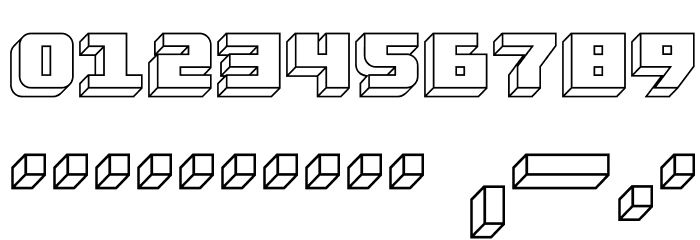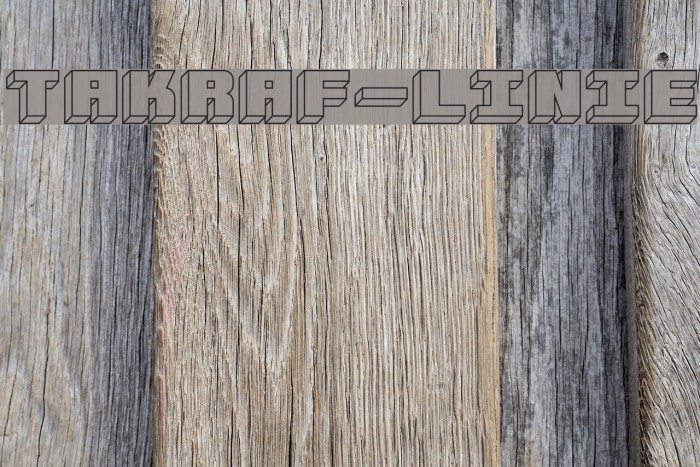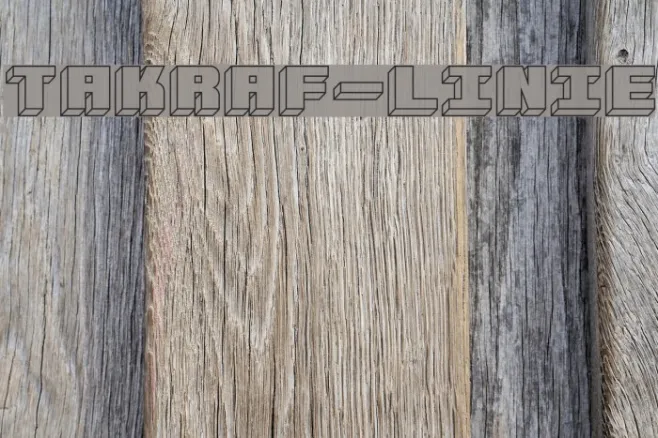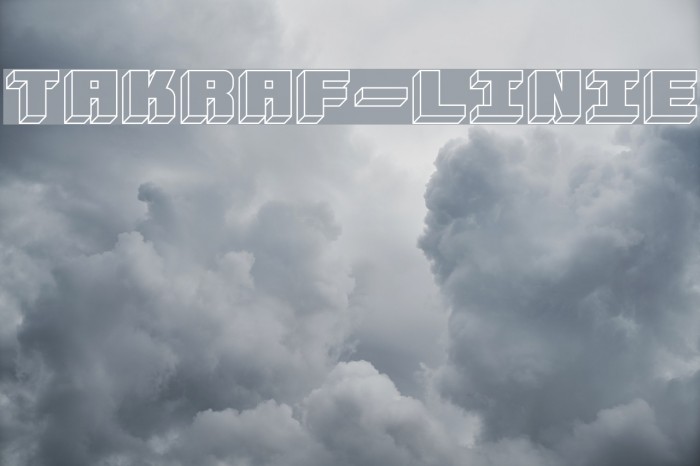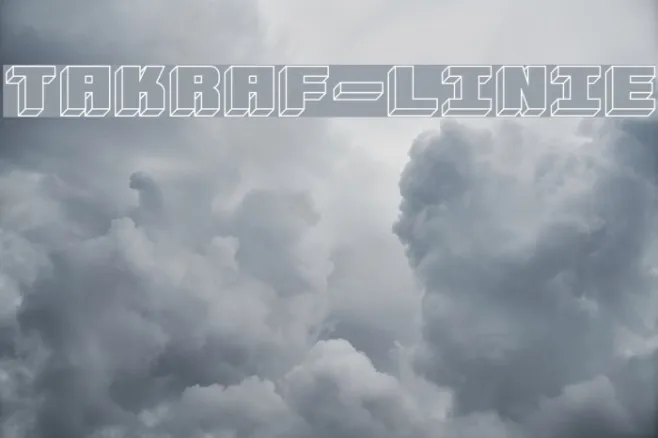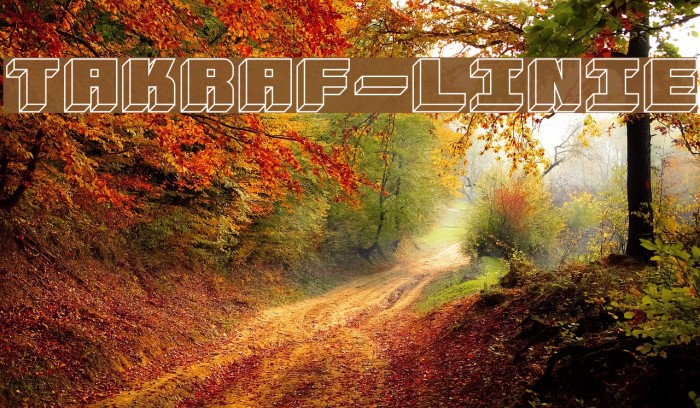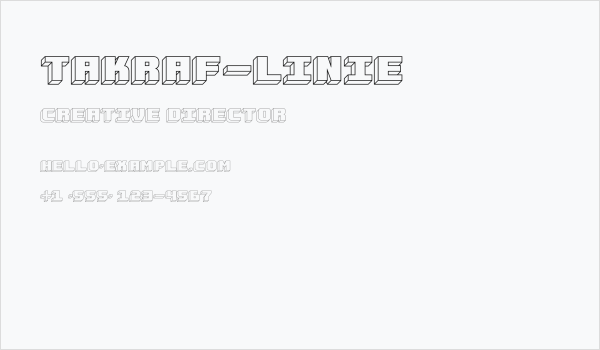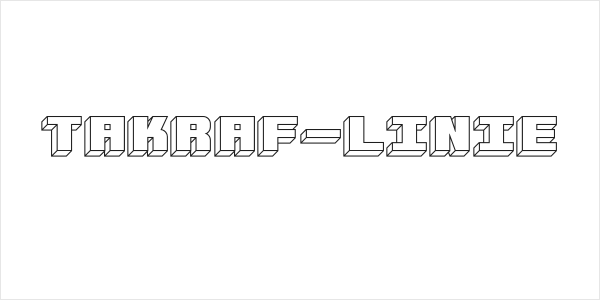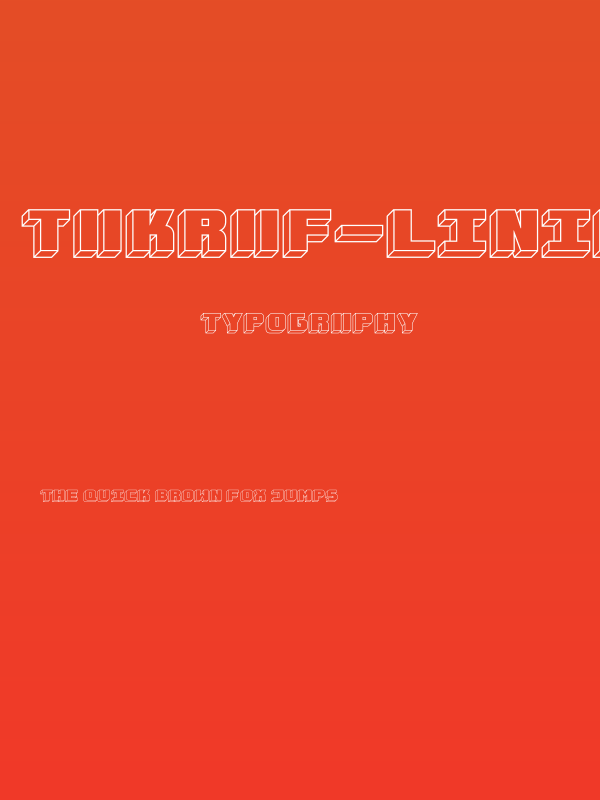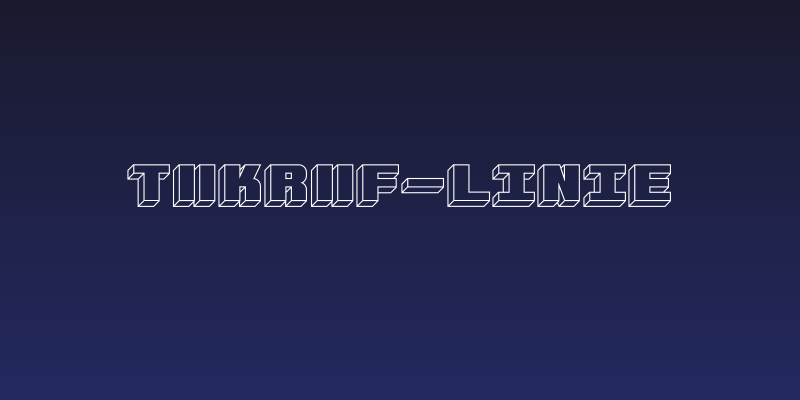
Takraf-Linie Font
Takraf-Linie Description
This font features a bold, three-dimensional block style that gives each character a distinct, geometric appearance. The letters are constructed with strong, angular lines and sharp edges, creating a sense of depth and solidity. The design is reminiscent of industrial or architectural elements, with a futuristic and technical feel. The characters are uniformly wide, maintaining a consistent structure throughout the alphabet, numbers, and special symbols. This font is highly decorative, making it suitable for eye-catching displays and headlines.
| Overall Style | Futuristic, Industrial |
| Proposed Projects | Ideal for futuristic branding, architectural designs, posters, and video game titles. |